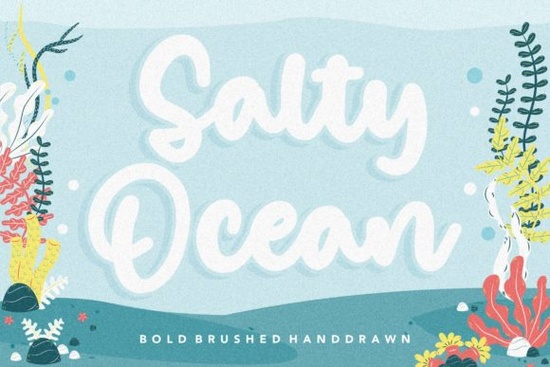
If you’ve been searching for a handwritten font that feels personal, graceful, and just a little bit whimsical, Salty Ocean Font might be exactly what your next project needs. It’s the kind of typeface that doesn’t shout for attention it draws you in with soft curves and thoughtful spacing, making it ideal for invitations, branding elements, packaging, or even wall art. Whether you’re designing for print-on-demand products, running a small Etsy shop, or just creating something special for a friend, this font adds warmth without overwhelming your layout.
What makes Salty Ocean Font stand out from other script fonts?
Not all handwritten fonts are created equal. Some feel stiff or overly decorative. Others lack personality. Salty Ocean strikes a balance it flows naturally, like someone actually wrote it with care and intention. The letterforms have subtle variations in stroke weight and gentle connections between characters, which gives your text an organic, human touch. You’ll notice how well it pairs with both minimalist designs and layered compositions.
If you’ve used fonts like Crowd Heart Script or Kangen Michella before, you’ll appreciate how Salty Ocean sits comfortably in that same family of elegant, readable scripts but with its own unique rhythm. It’s not trying to be trendy; it’s built to last across seasons and styles.
When should I use this font in my projects?
This is where context matters. Salty Ocean works beautifully when you want to convey emotion think wedding stationery, baby announcements, boutique product labels, or social media quotes that need to feel heartfelt. Because of its legibility at medium to large sizes, it’s also great for logos or signage where you still want a handcrafted vibe.
- Wedding invites or save-the-dates adds intimacy and charm
- Product packaging for handmade goods soap, candles, teas, baked treats
- Wall art or printable quote posters especially paired with watercolor backgrounds
- Branding for lifestyle or wellness businesses yoga studios, cafes, boutiques
One thing to keep in mind: while it’s versatile, Salty Ocean isn’t meant for body text or tiny captions. Save it for headlines, titles, or short phrases where each letter can shine.
How does it compare to similar fonts on Creative Fabrica?
You might already be familiar with Make a Note Font, which has a more casual, notebook-style energy. Or perhaps Kids Sketch Hand, which leans playful and youthful. Salty Ocean occupies a different space more refined, yet still relaxed. It doesn’t feel corporate, but it’s polished enough for professional use.
If you’re building a font library for client work or seasonal collections, having options like these lets you match the tone precisely. Need something fun? Go sketchy. Need something soulful? Reach for Salty Ocean.
Any tips for pairing it with other fonts or design elements?
A common mistake is pairing two highly decorative fonts together they end up competing instead of complementing. With Salty Ocean, try combining it with clean sans-serifs like Montserrat, Lato, or even a simple serif like Merriweather. That contrast helps your main message pop while keeping the overall look balanced.
Also consider texture. Since Salty Ocean has such a fluid, almost watery quality (hence the name), it looks stunning over soft gradients, linen textures, or sea-inspired color palettes think muted blues, sandy beiges, coral pinks. Even a simple white background with ample negative space lets the font breathe and show off its details.
Is it beginner-friendly for non-designers?
Absolutely. If you’re new to typography or using design tools like Canva, Photoshop, or Silhouette Studio, Salty Ocean installs like any other OTF or TTF file. Most platforms recognize it instantly. There’s no complicated kerning or ligature setup required unless you want to dive deeper into advanced features which are optional, not essential.
The real win here is accessibility. You don’t need to be a pro to make beautiful things with this font. Just pick a phrase, choose your size, and let the letters do the talking.